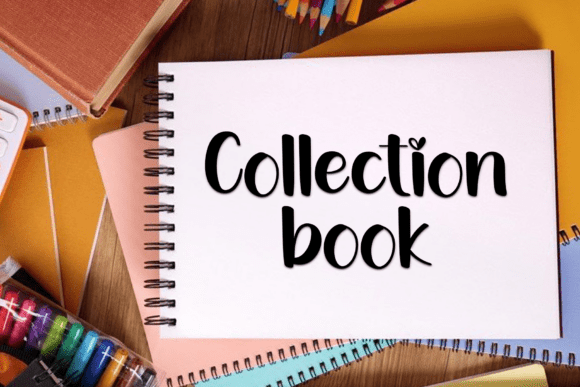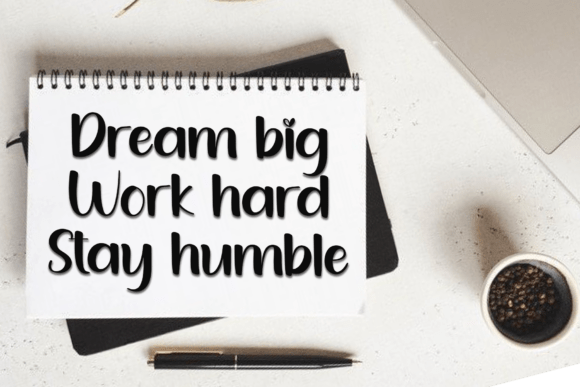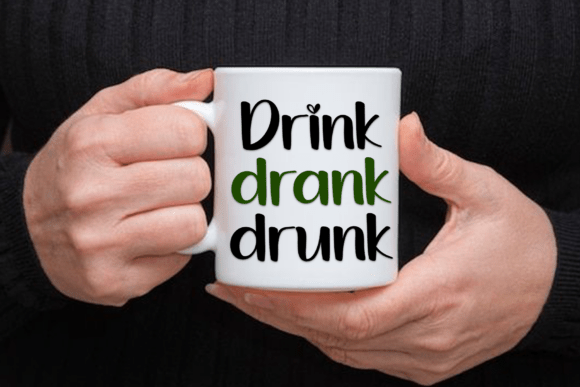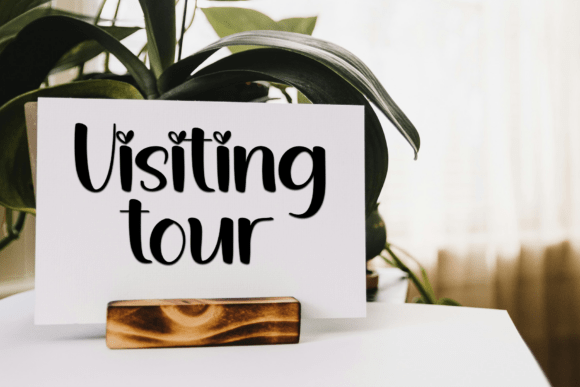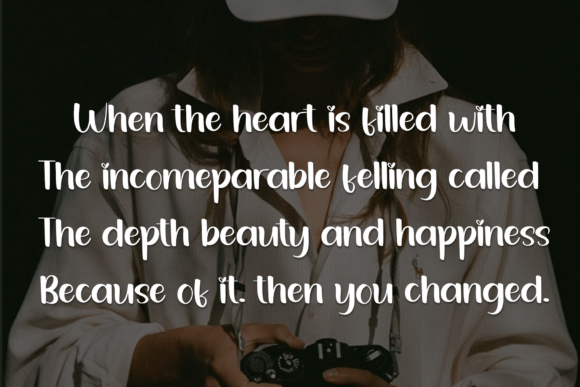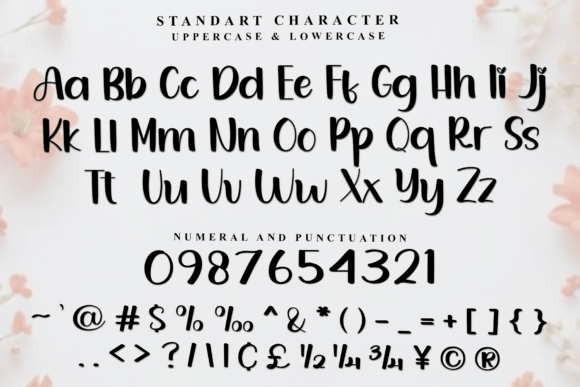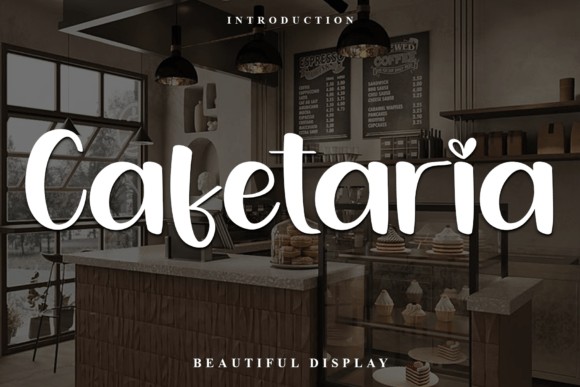
Cafetaria Font: A Festive and Merry Typeface for the Holiday Season
The holiday season is upon us, and what better way to get into the spirit than with a font that’s as festive and merry as Cafetaria? This decorative typeface is designed to capture the magic of the holiday season, with its whimsical flair and enchanting elements. Whether you’re a designer, crafter, or simply someone who loves the holidays, Cafetaria Font is the perfect addition to your typography collection.
A Font that Adds a Touch of Enchantment
Cafetaria Font is more than just a typeface – it’s an experience. With its intricate details and decorative elements, it adds a touch of whimsy and wonder to your designs. Imagine creating greeting cards, gift tags, and holiday-themed projects that transport your recipients to a winter wonderland of nostalgia and cheer. That’s what Cafetaria Font can do for you.
Cafetaria Font is specifically designed with the holiday season in mind. Its festive and merry vibe makes it perfect for a wide range of projects, including:
- Greeting cards: Create personalized and festive greeting cards that will make your loved ones feel special.
- Gift tags: Add a touch of magic to your gift-giving with custom gift tags that feature Cafetaria Font.
- Holiday-themed projects: From invitations to party decorations, Cafetaria Font is the perfect choice for any holiday-themed project.
Bringing a Cheerful and Nostalgic Ambiance
Cafetaria Font is more than just a decorative typeface – it’s a way to evoke a sense of nostalgia and cheer. With its whimsical flair and festive elements, it brings a touch of warmth and coziness to your designs. Imagine creating projects that make people feel happy, nostalgic, and festive. That’s what Cafetaria Font can do for you.
Let Your Typography Shine
With Cafetaria Font, you can let your typography shine like never before. Whether you’re a seasoned designer or a crafter, this font is sure to inspire you to create something magical. So why settle for ordinary typography when you can create something extraordinary with Cafetaria Font?
In conclusion, Cafetaria Font is a must-have for anyone who loves the holiday season. With its festive and merry vibe, decorative elements, and whimsical flair, it’s the perfect addition to your typography collection. Whether you’re a designer, crafter, or simply someone who loves the holidays, Cafetaria Font is sure to bring a touch of enchantment to your designs. So why wait? Get your hands on Cafetaria Font today and let the magic begin!
- Festive and merry typeface.
- Decorative elements and whimsical flair.
- Perfect for holiday-themed projects.
- Evokes a sense of nostalgia and cheer.